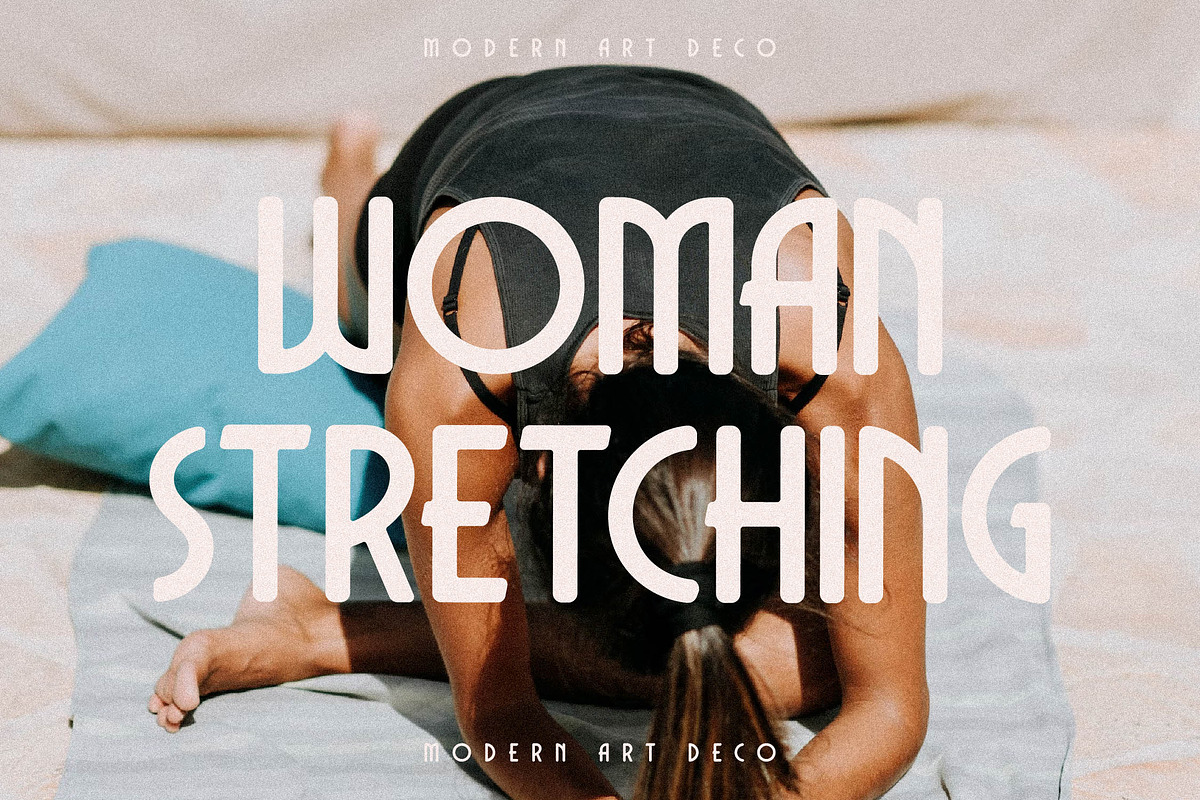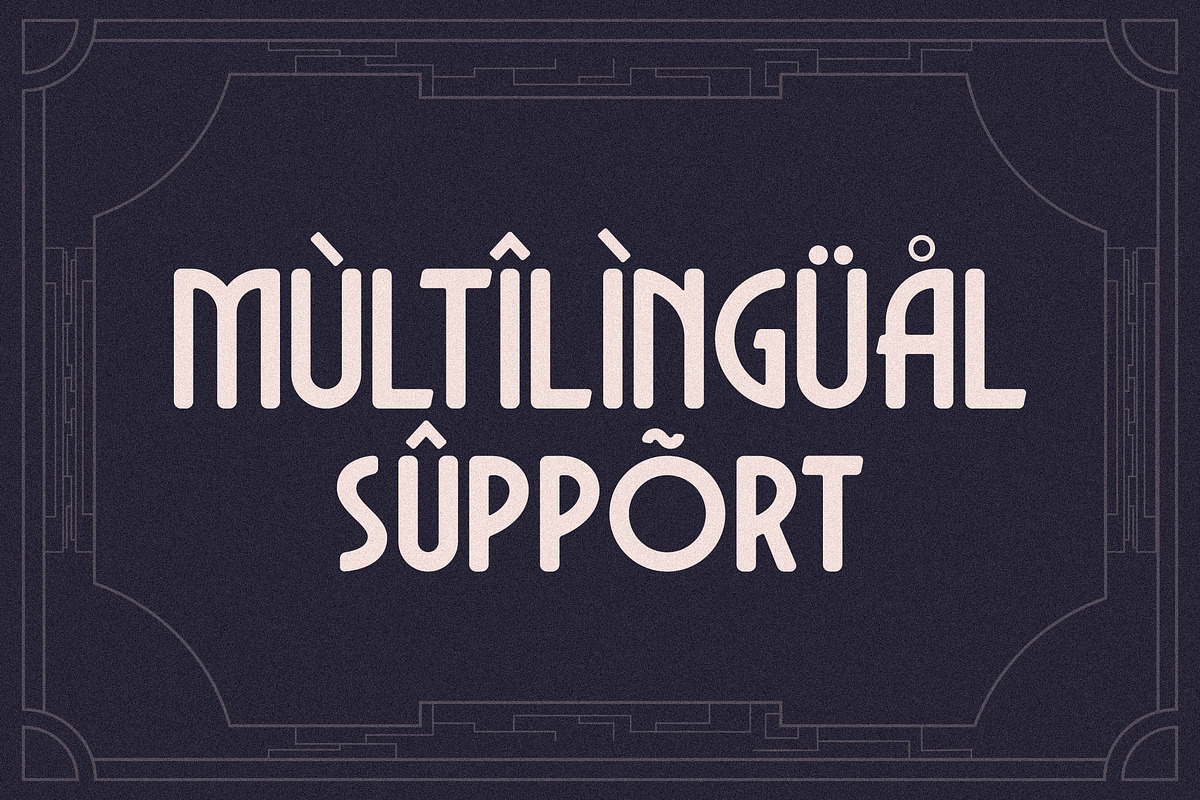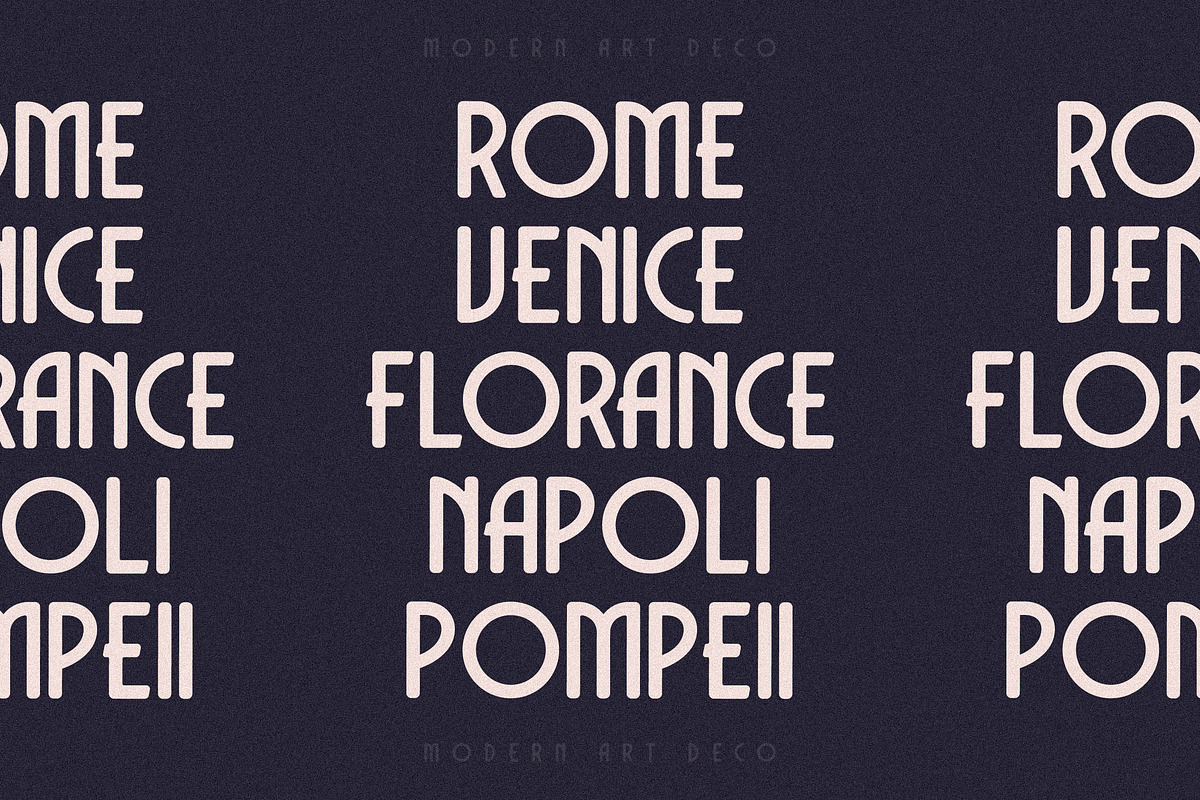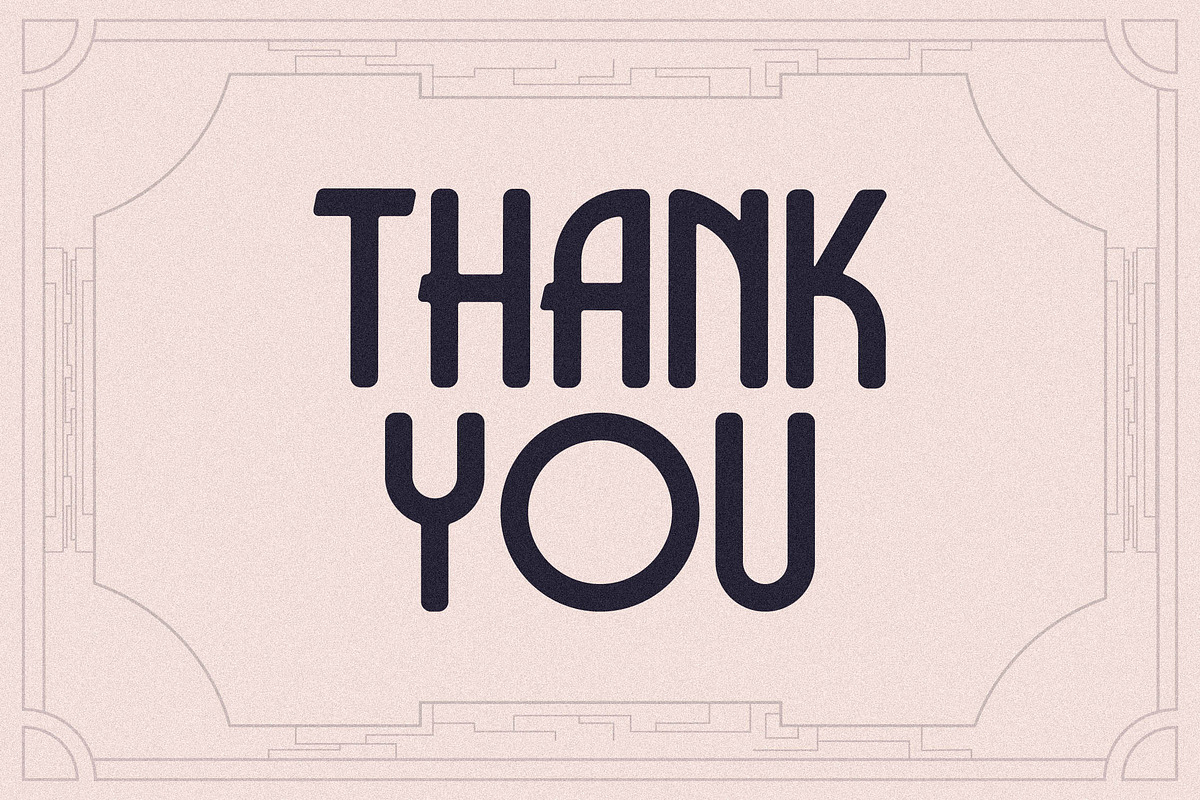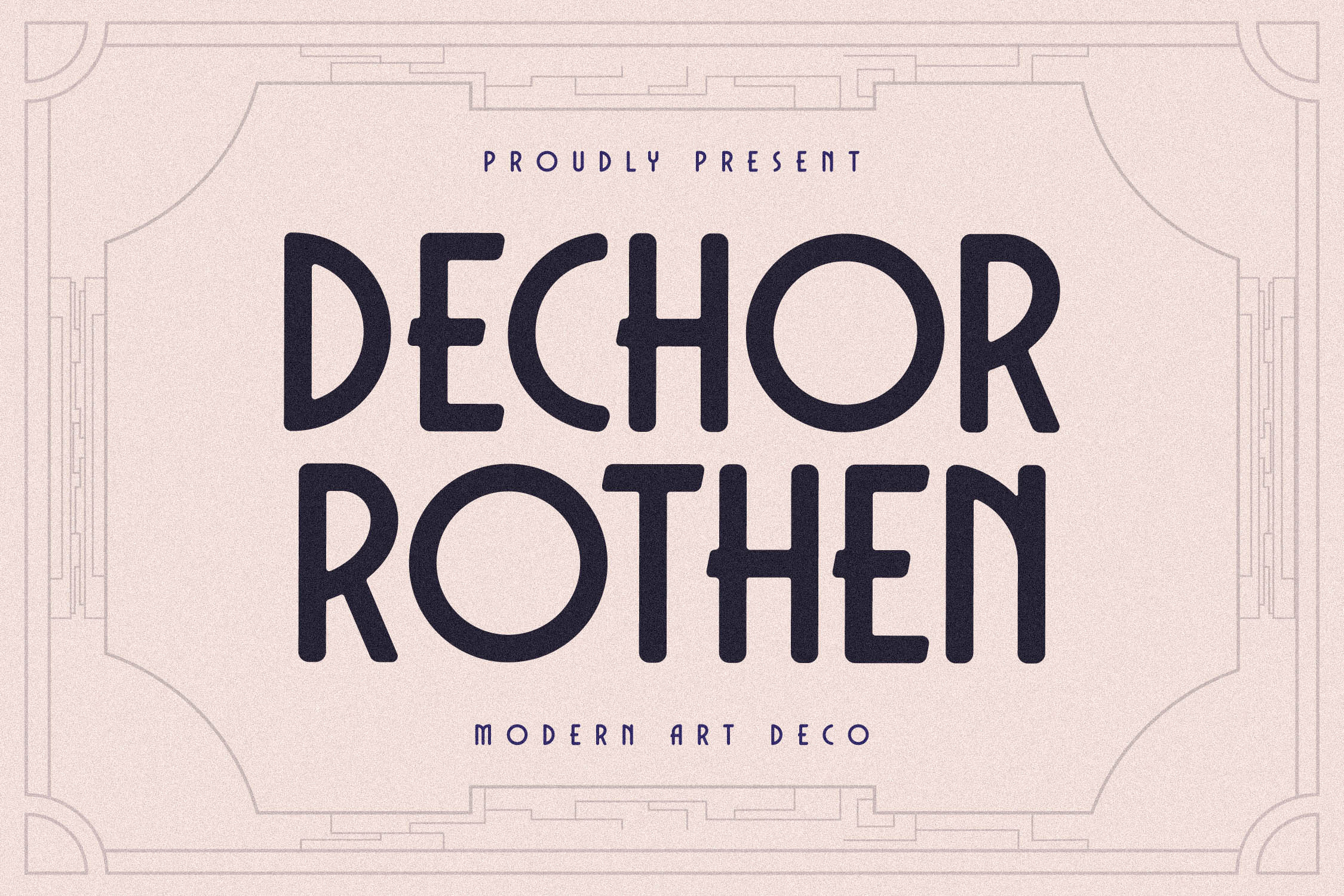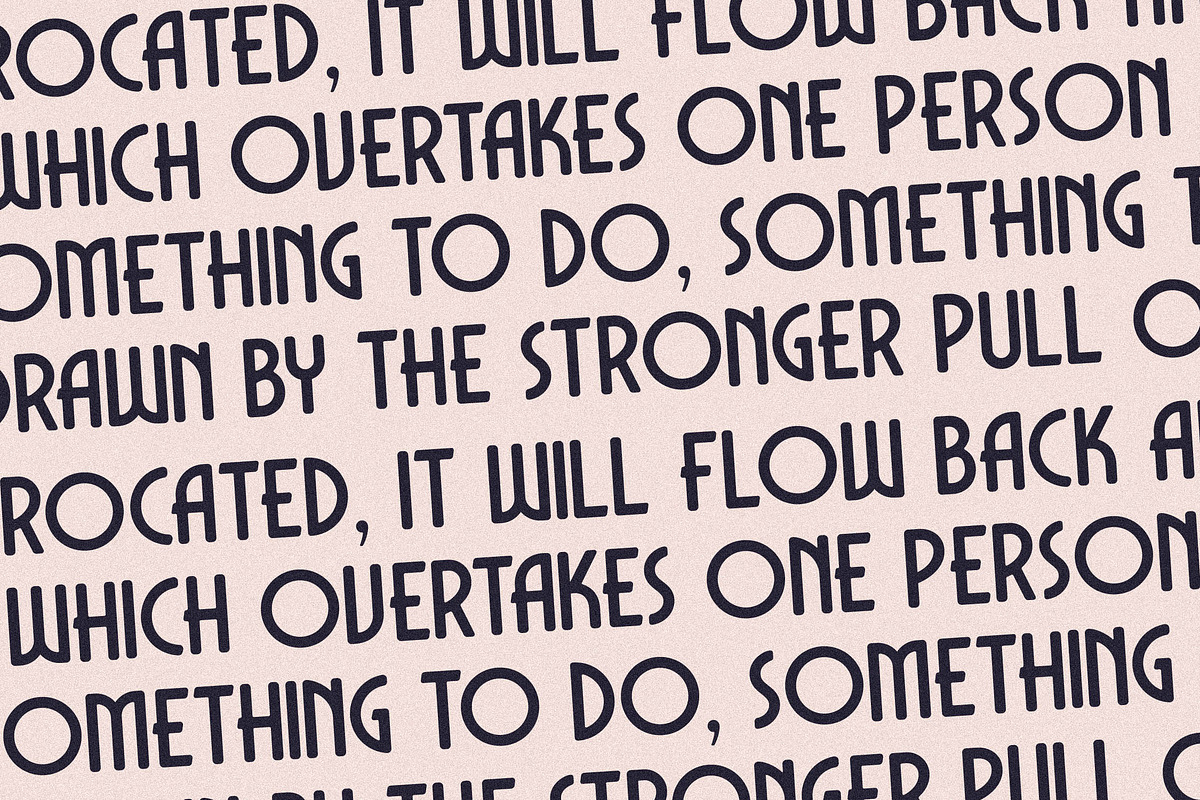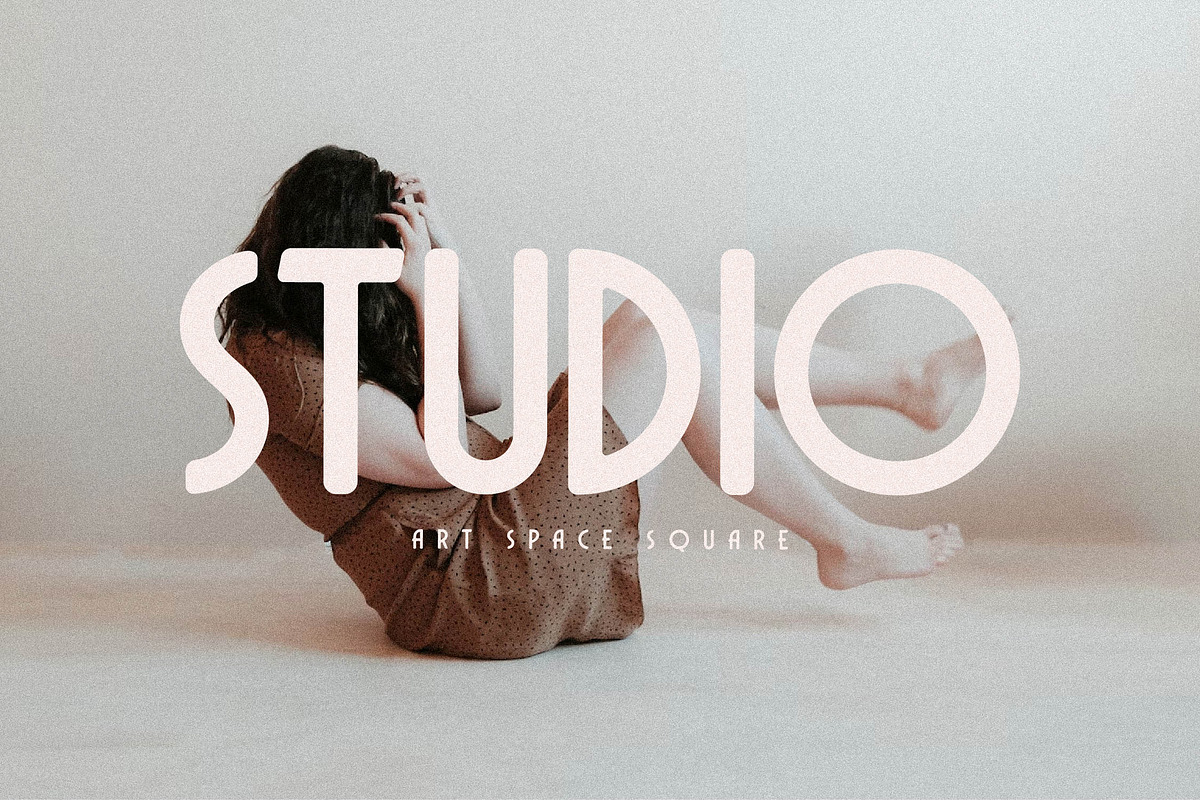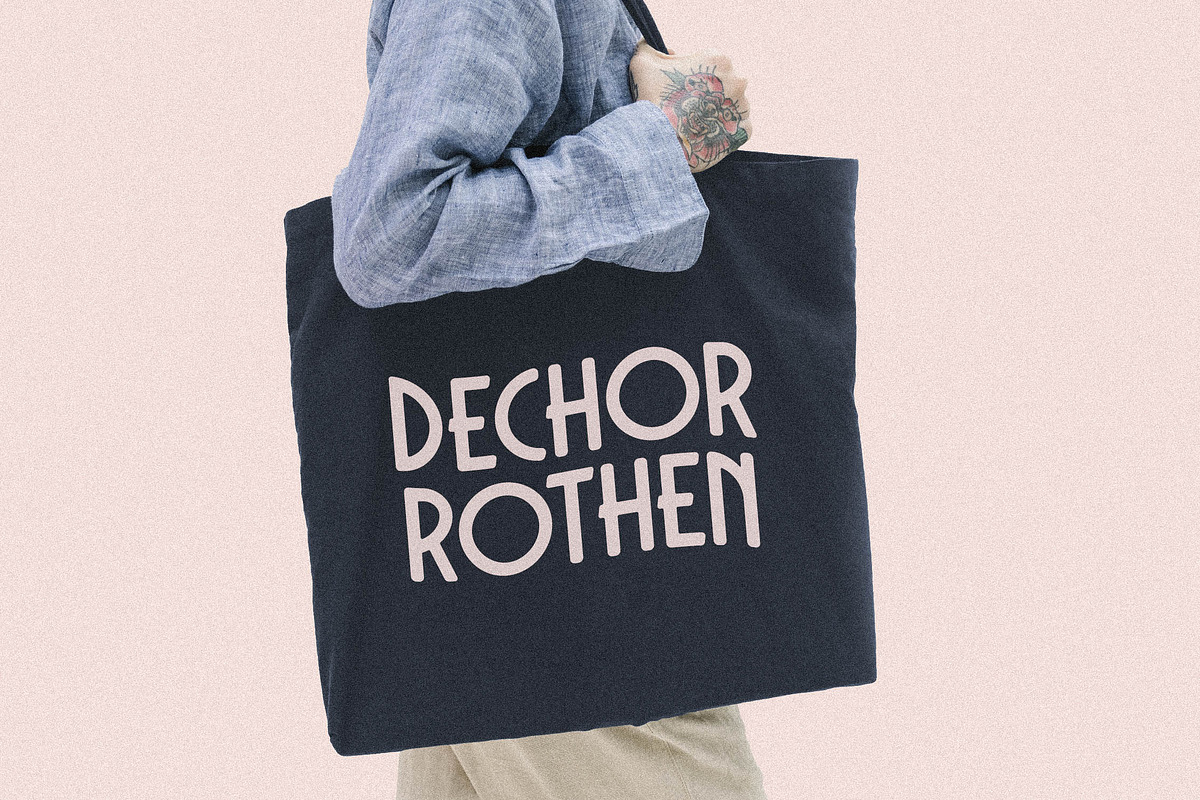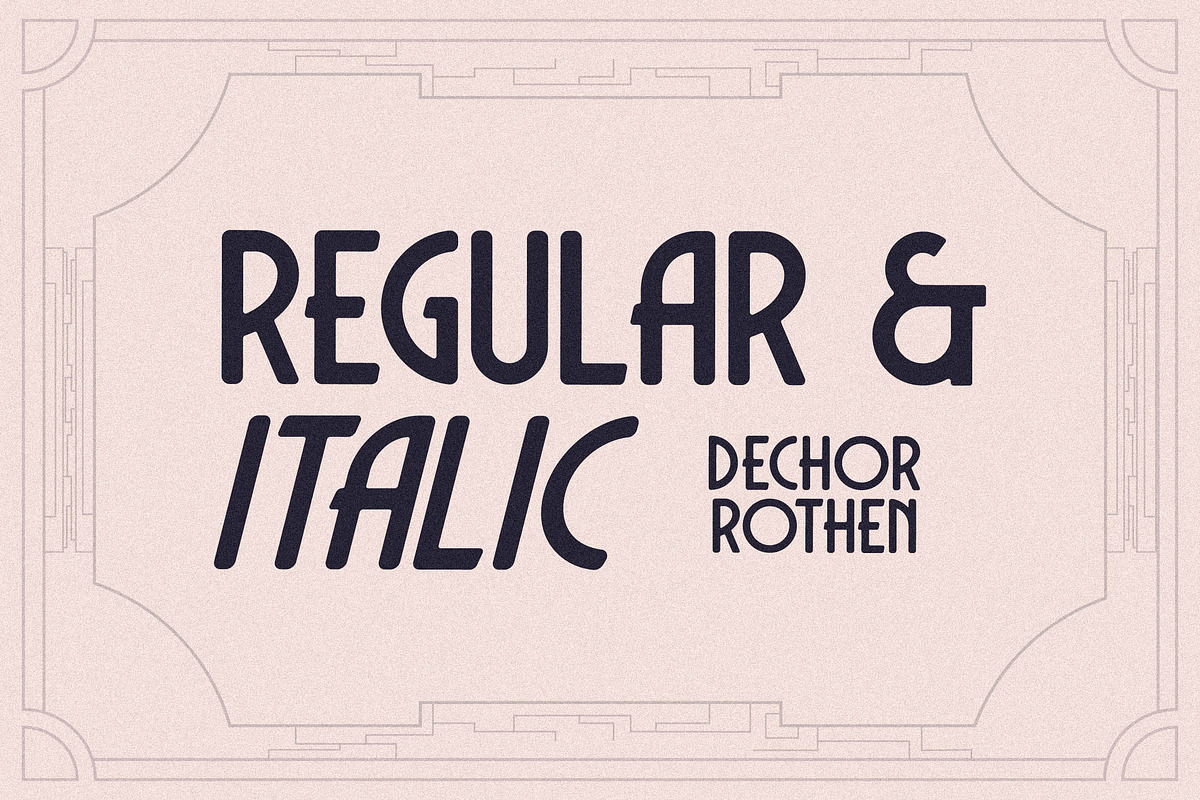
Dechor Rothen Modern Art Deco Font
Proudly present Dechor Rothen Modern Art Deco , created by Storytype, A serif modern and classic typeface that has own unique style & modern look. This typeface is perfect for an elegant & luxury logo, book or movie title design, fashion brand, magazine, clothes, lettering, quotes, and so much more.